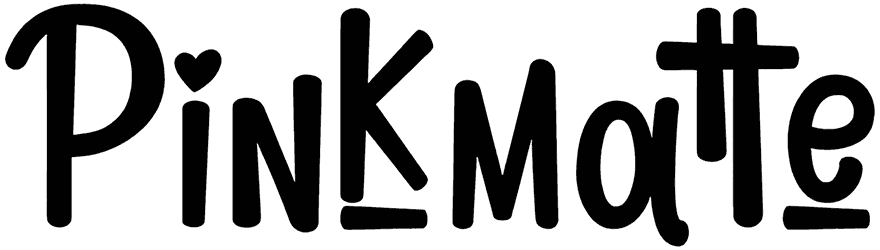
Pinkmatte Font
Pinkmatte is a heart font that is insanely fit for all of your creative ideas including posters, illustrations, branding projects, logos, and flyers. We offer you to just try it in your artwork and notice how it elevates them to a higher level of quality. Last but not least, it comes with a sense of jauntiness, drama, playfulness, and disorder.